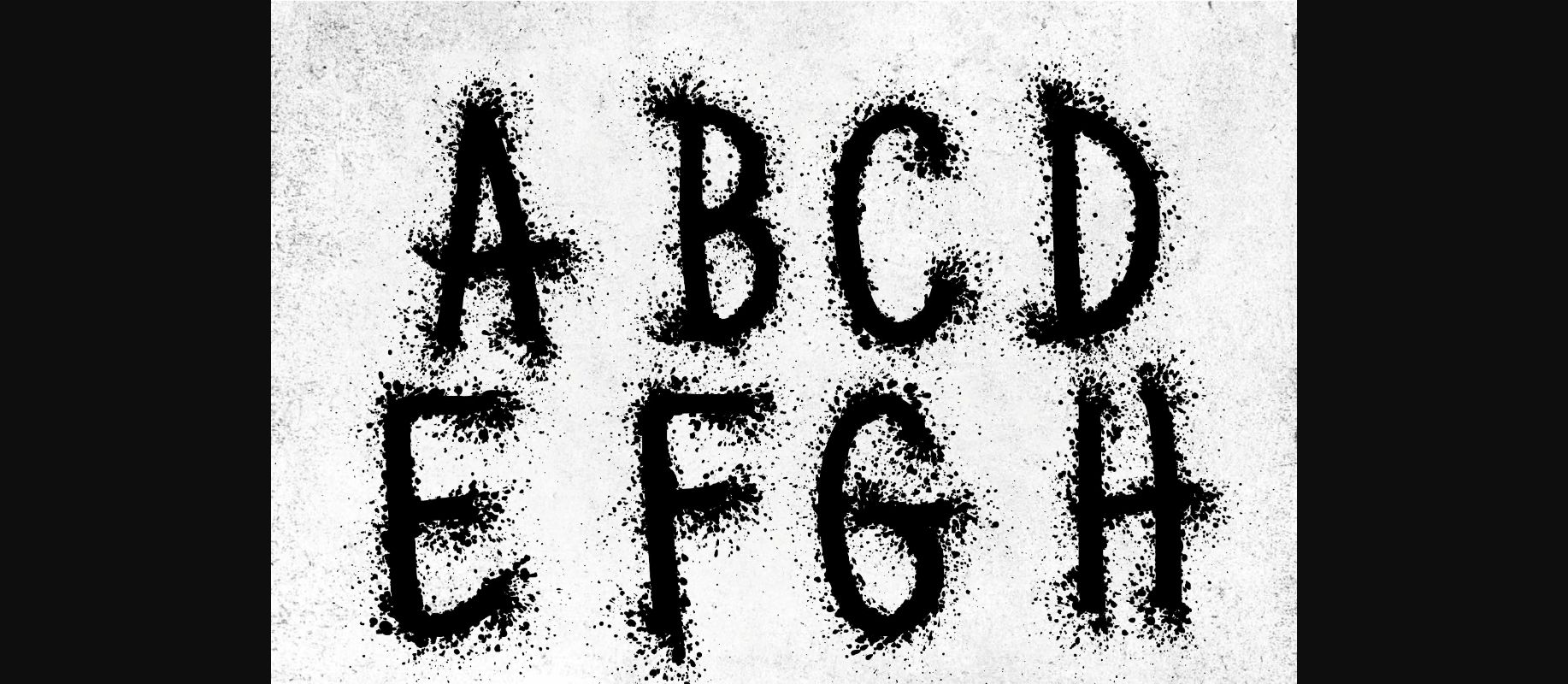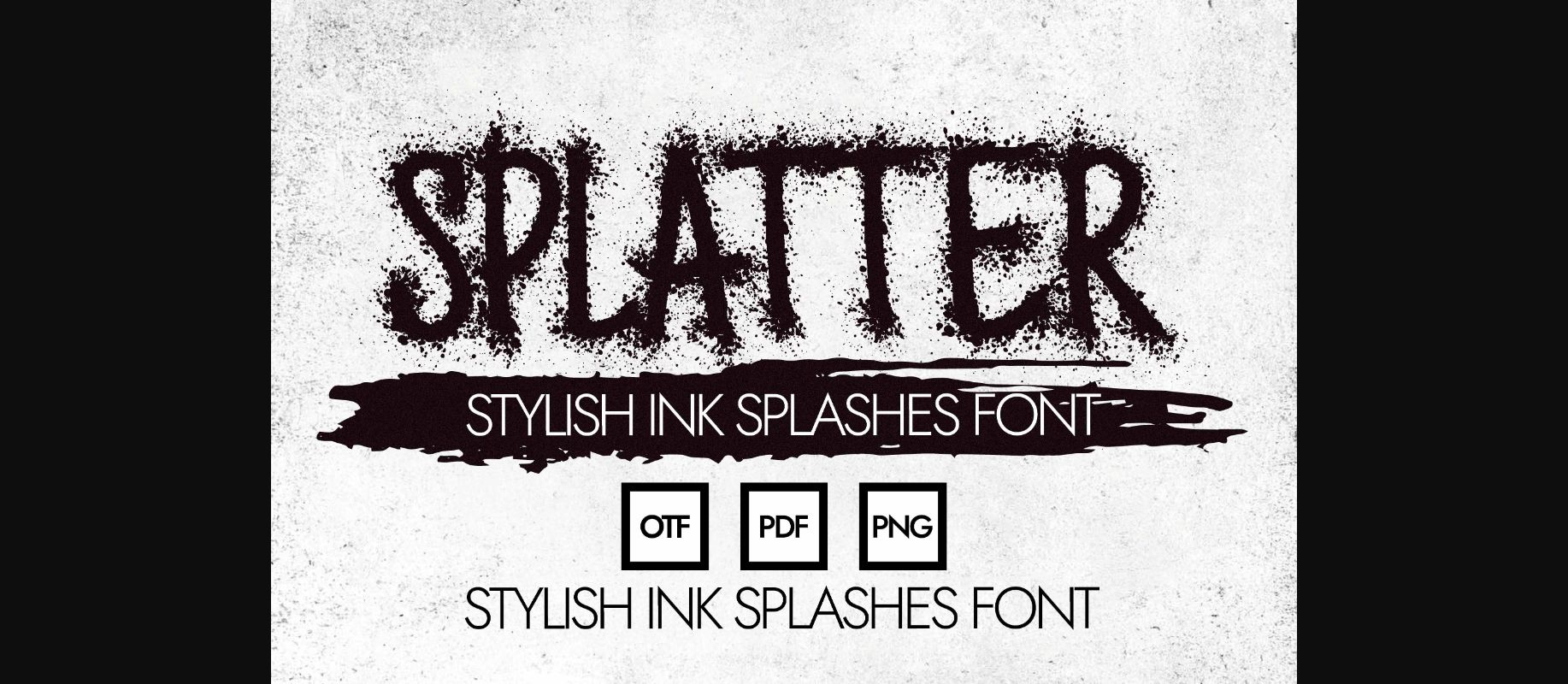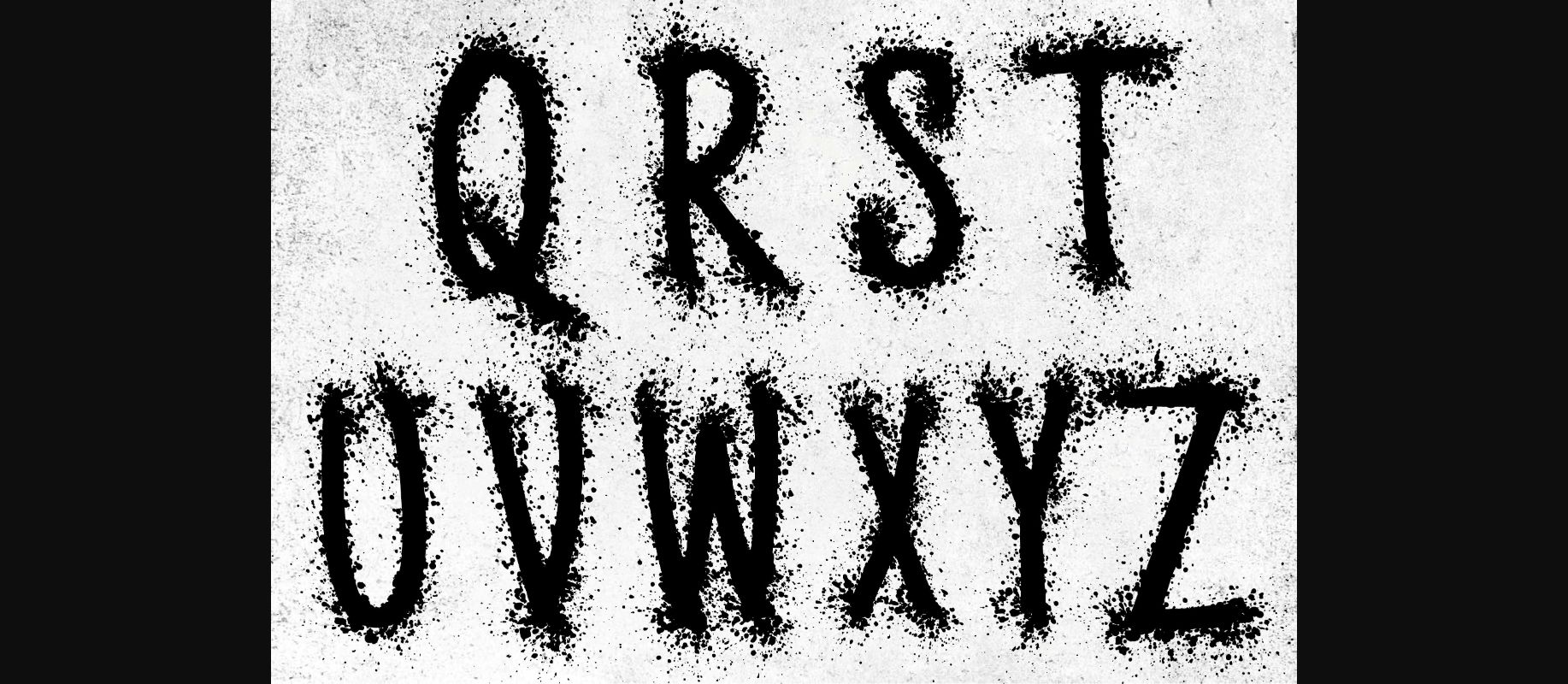
About Splatter Font
Splatter is a beautiful decorative design carefully crafted to give an eye-catching effect to your headings, posters, social media posts, and many more! Add it to your creative projects, and it will make them stand out!